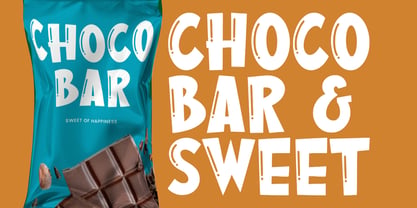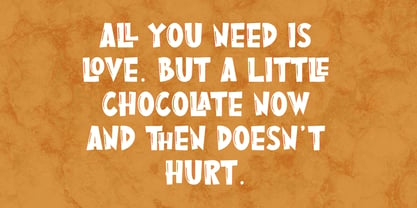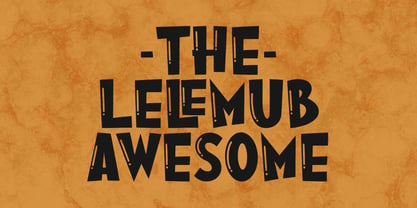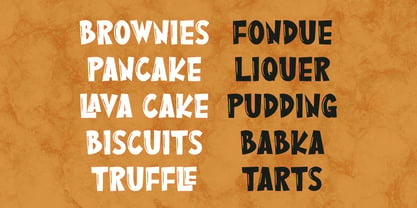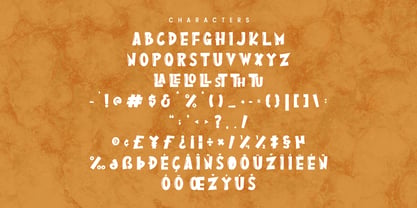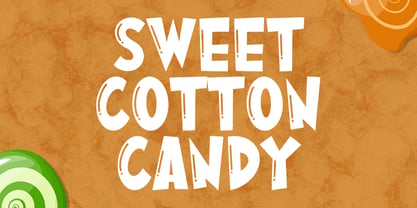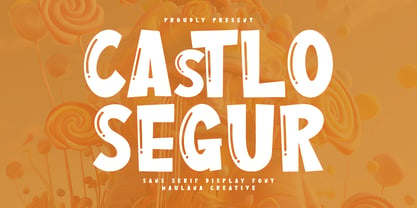
MC Castlo Segur
by Maulana Creative
The MC Castlo Segur Font Family was designed by Gilang Maulana and published by Maulana Creative. MC Castlo Segur contains 1 styles. More about this family
Castlo Segur is a sans serif display handwritten font. With bold stroke, fun character with a bit of ligatures. To give you an extra creative work. Castlo Segur font support multilingual more than 100+ language. This font is good for logo design, Social media, Movie Titles, Books Titles, a short text even a long text letter and good for your secondary text font with sans or serif. Make a stunning work with Castlo Segur font.
Designers: Gilang Maulana
Foundry: Maulana Creative